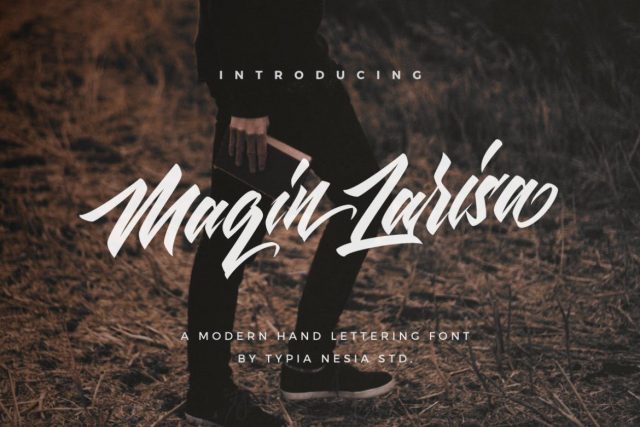
Maqin Larisa is a modern hand lettered font
Maqin Larisa Display (.ttf & .otf) : Allcaps Typeface, perfectly combine with Maqin Larisa Script to create cool – typography or logo design.